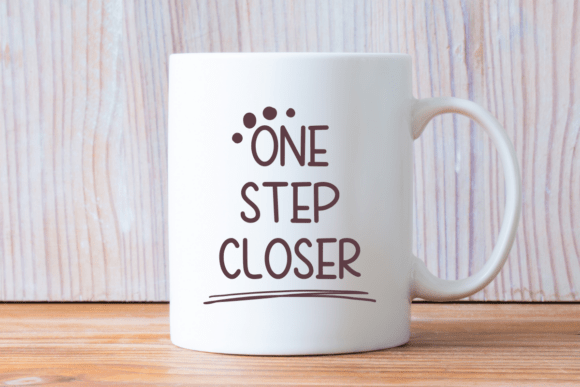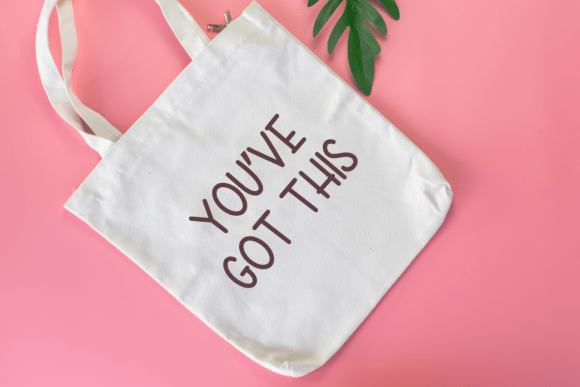
Introduction to Romance Geometric Font
Do you ever find yourself lost in the world of crafting, searching for the perfect font to bring your creative projects to life? I know I do! It’s that moment when you stumble upon a design element that speaks to your soul, and you just can’t wait to get creative. For me, that moment came when I discovered the enchanting Romance Geometric Font.
This delightful font has captured the hearts of many designers, crafters, and makers, and for good reason. Its playful, handwritten style makes it the perfect design resource for a variety of creative projects, from planners and stickers to greeting cards and sublimation designs. Whether you’re a seasoned pro or a DIY enthusiast, the Romance Geometric Font is sure to add a touch of magic to your work.
Key Features of Romance Geometric Font
- High-quality design resource ideal for creative projects, offering a unique blend of romance and geometric elements.
- Comes with a transparent background, allowing for seamless integration into various design applications.
- Features a clean and modern aesthetic, perfect for a wide range of design projects, from wedding invitations to graphic designs.
- Includes a range of characters and glyphs, including uppercase and lowercase letters, numbers, and punctuation marks.
- Designed to be versatile and adaptable, making it an excellent addition to any designer’s toolkit or font library.
Honest Review: Romance Geometric Font
I recently had the chance to work with the Romance Geometric Font for a creative project, and I must say it was a fantastic experience. This design resource has a lot to offer, especially for those looking for a high-quality, geometric font.
Here are some of the things that worked well for me:
- ✨ Clear and easy-to-read letters: The font’s design is clean and modern, making it perfect for various applications, from print to digital media.
- ✨ High-quality vectors: The font’s vector files are precise and detailed, allowing for seamless scaling and manipulation.
- ✨ Transparent background: The font’s transparent background makes it easy to layer and combine with other design elements.
- ⚠️ Limited character set: The font’s character set is relatively limited, which may not be suitable for projects that require a wide range of characters.
- ⚠️ Not ideal for cursive or script text: The font’s geometric design may not be the best fit for cursive or script text, as it can appear a bit rigid and unnatural.
Overall, I’m really impressed with the Romance Geometric Font. It’s a high-quality design resource that can add a touch of elegance and sophistication to any project. While it may have some limitations, I think it’s definitely worth checking out, especially for those looking for a free, high-quality font.
The Romance Geometric Font is a high-quality design resource ideal for creative projects that require a touch of elegance and sophistication. With its clean and modern design, this font is perfect for a variety of applications, from branding and marketing materials to wedding invitations and social media graphics.
– Create stunning graphics and designs with ease using the Romance Geometric Font.
– Use the font in your graphic design projects for a professional and elegant look.
– Add a touch of sophistication to your presentations and documents with the Romance Geometric Font.
For the most out of the Romance Geometric Font, use it in combination with other design elements, such as bold colors and geometric shapes. Common use cases include: